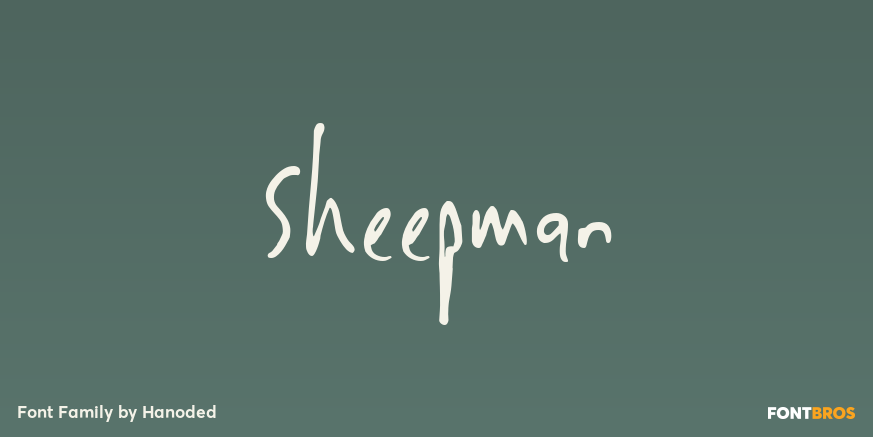
HomeFont BrosHandwrittenSheepman Handwritten Sheepman FacebookXPinterestWhatsApp 1 of 1 About Sheepman font was named after my favorite Haruki Murakami character: the Sheep Man. Sheepman font is handwritten, messy, but legible and complete. It comes with alternates and ligatures.  DOWNLOAD ON FONT BROSThis font is sold and delivered by Font Bros. Font Canyon may earn a commission if you buy through this link. People also explored Candy Grunge Font Narimopune Font Medicine Eagle Rollingstand Font Brownsburg Font Incididunt Font Quirky and Messy Font Rainsha Font Starwinter Font 374 0 TagsSheepman Font Previous articleSpookyNext articleOffense LEAVE A REPLY Cancel reply Comment: Please enter your comment! Name:* Please enter your name here Email:* You have entered an incorrect email address! Please enter your email address here Website: Save my name, email, and website in this browser for the next time I comment. Personal Use Free Haris Wood Personal Use Free Read more about this font Rolling Door Personal Use Free Read more about this font The 10 Best Handwriting Fonts to Add Personality to Your Designs Blog Read more about this font Crack Man Personal Use Free Read more about this font BLOG How to Cut Any Font on Cricut: Convert a Font to SVG (Free) Turn any font into a clean SVG so it cuts crisp on Cricut - a quick 3-step workflow using a free font-to-SVG tool. Elegant Wedding Invitation Fonts – Handwritten & Script Fonts Exploring Font Trends Transform Your Website: Elevate Your Typography with 7 Best Web Font Generators